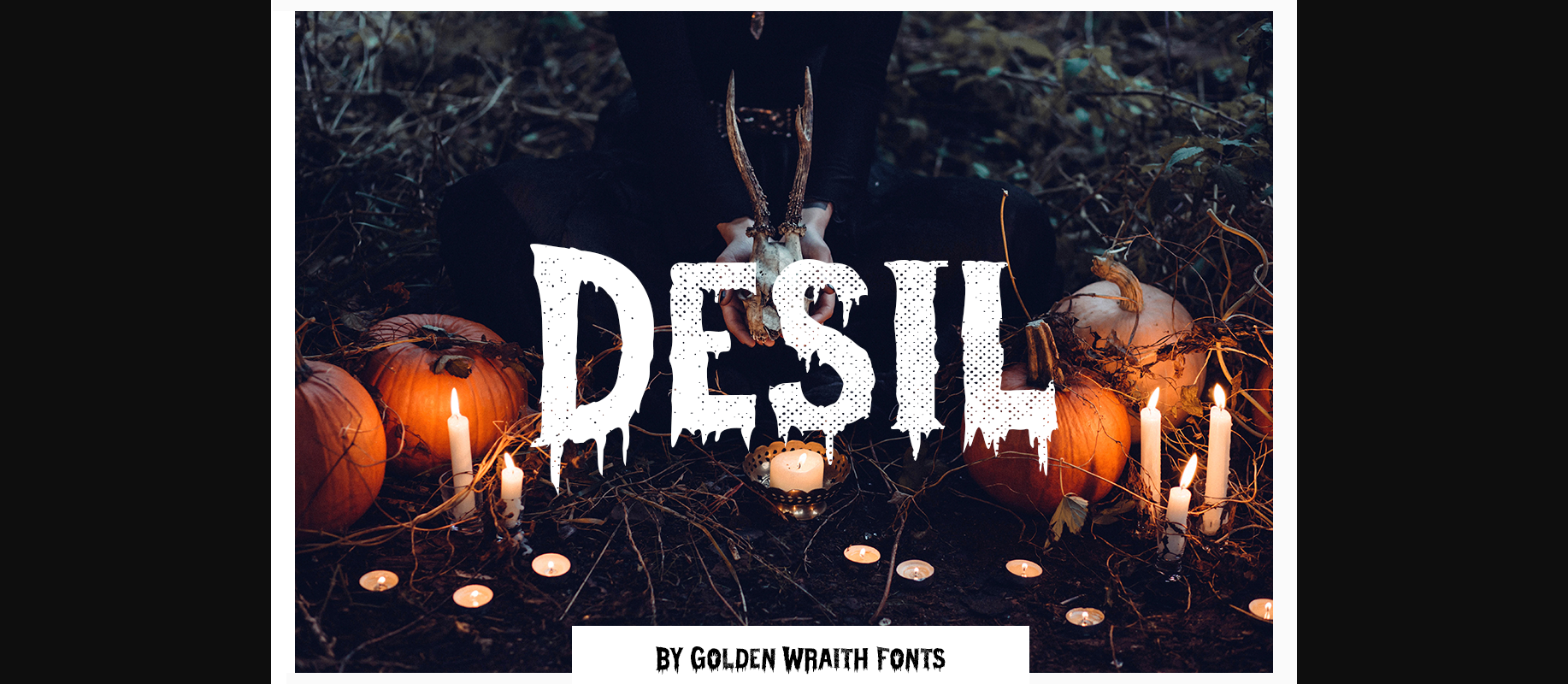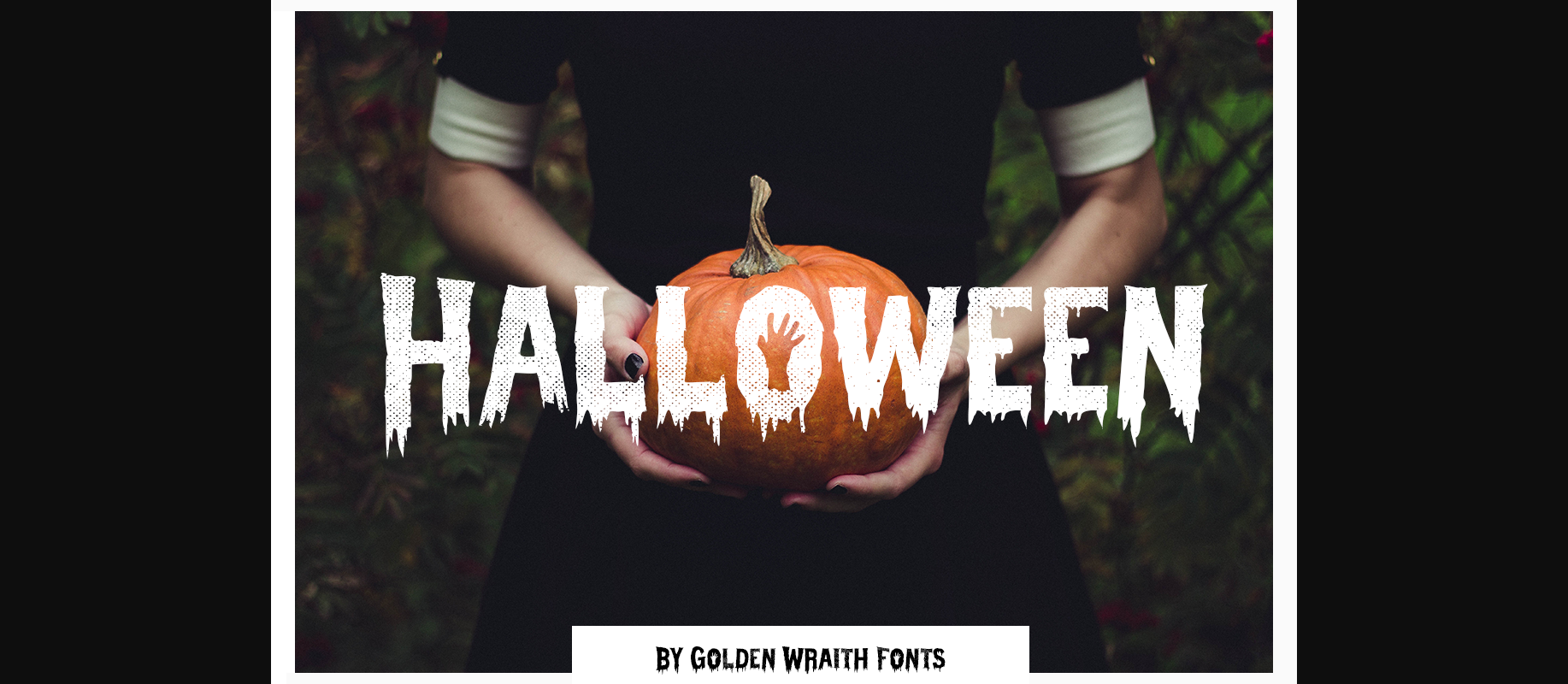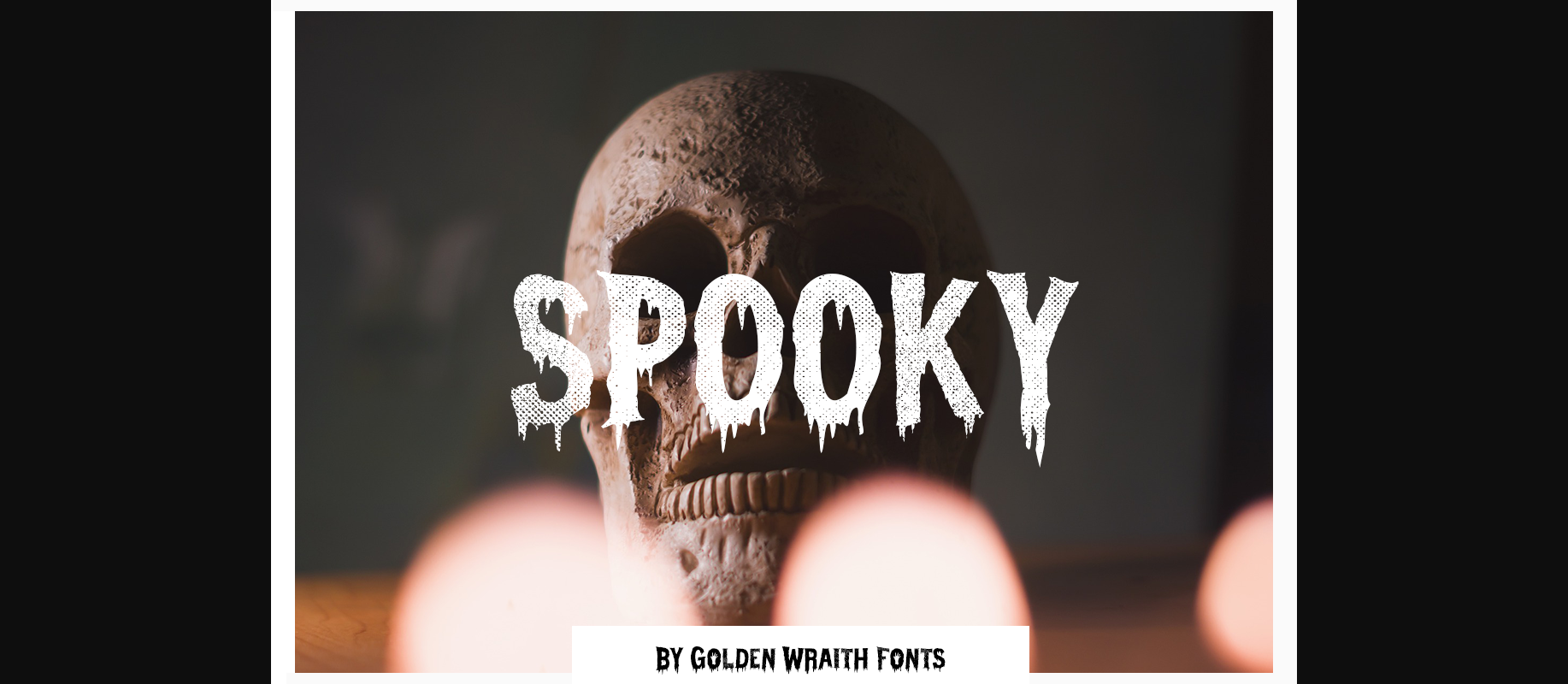
Desil is a frightening Halloween decorative font. It has bold characters and a nice spooky vibe that can add life to each of your Halloween crafty projects!